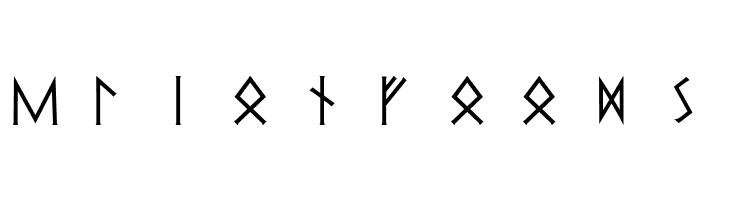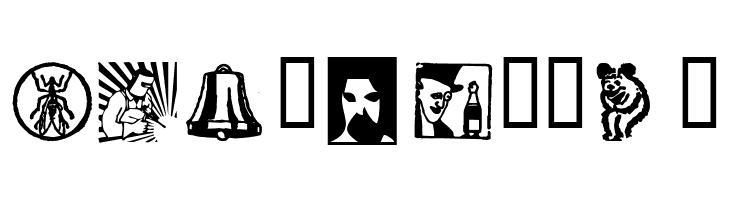
( Fonts by bob istheowl http://luc.devroye.org/bobistheowl.html )
A pictorial font using stylized portraits for each character.
( Fonts by Peter Rempel - www.prfonts.com )
A bold, geometric font inspired by ancient runic alphabets.
Ornate dingbat font with angel and fairy illustrations.
( Fonts by Astigmatic One Eye Typographic Institute - Brian J. Bonislawsky - astigmatic.com )
A decorative symbol and shape dingbat set.
A weather-themed decorative icon set with playful, illustrative symbols.